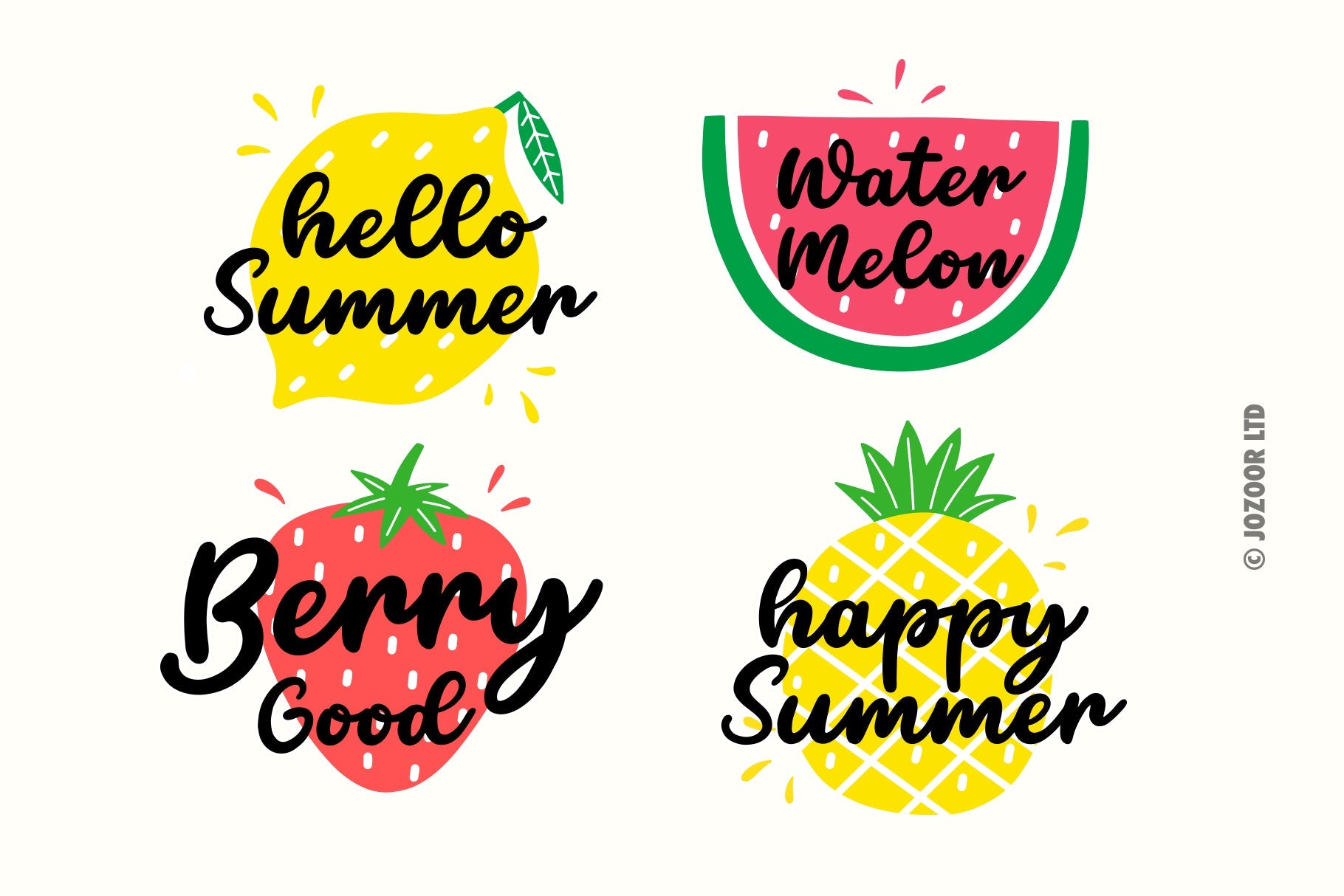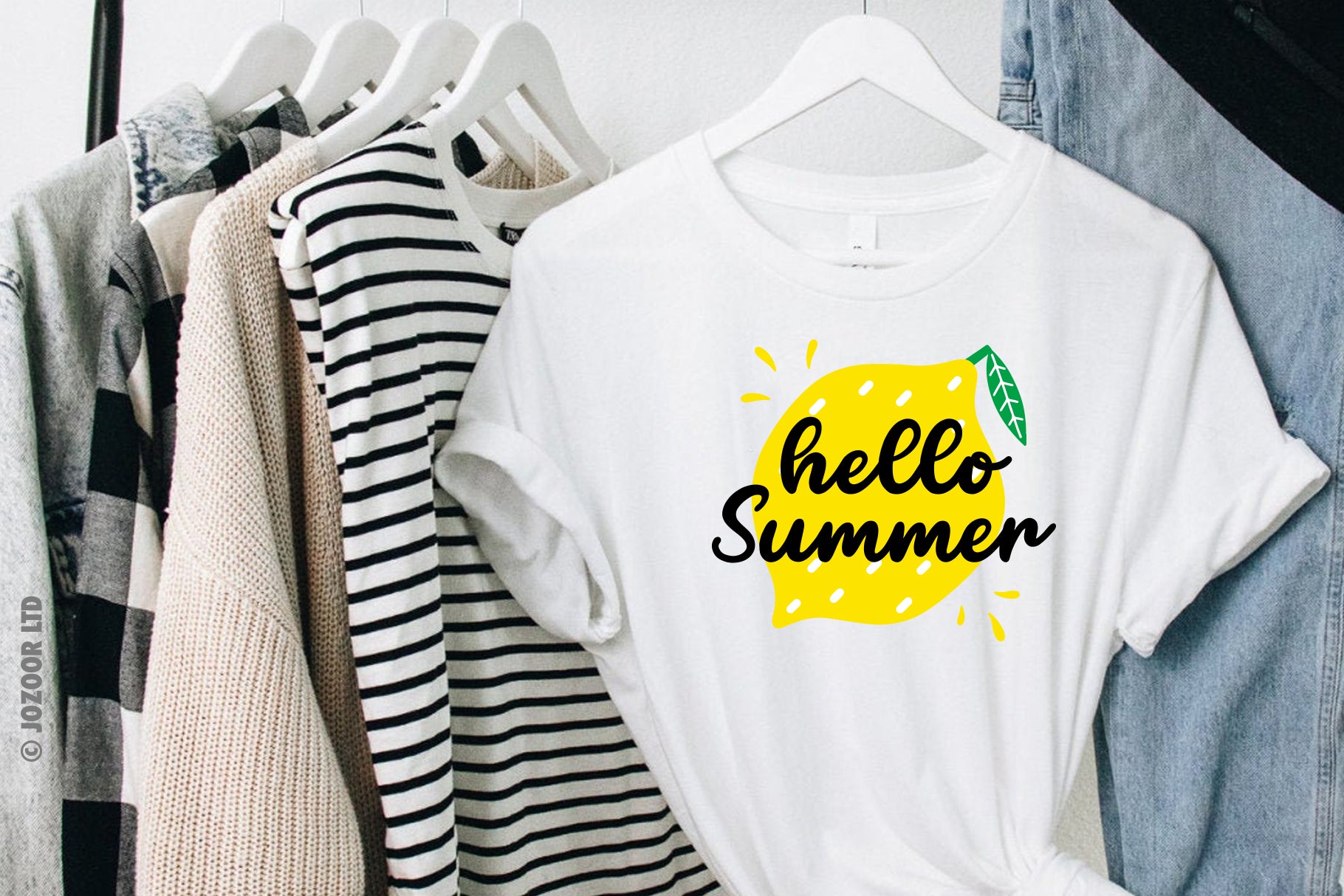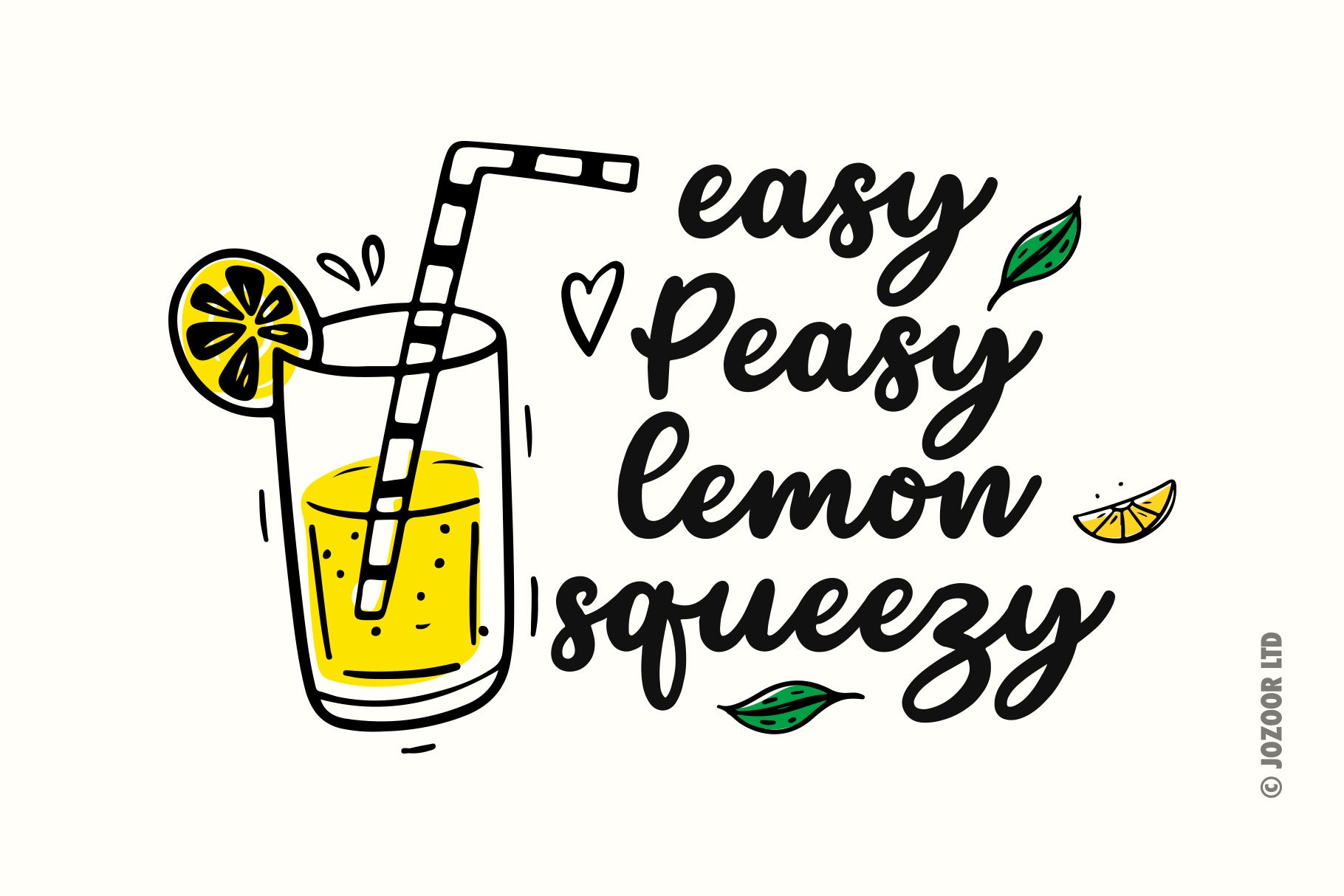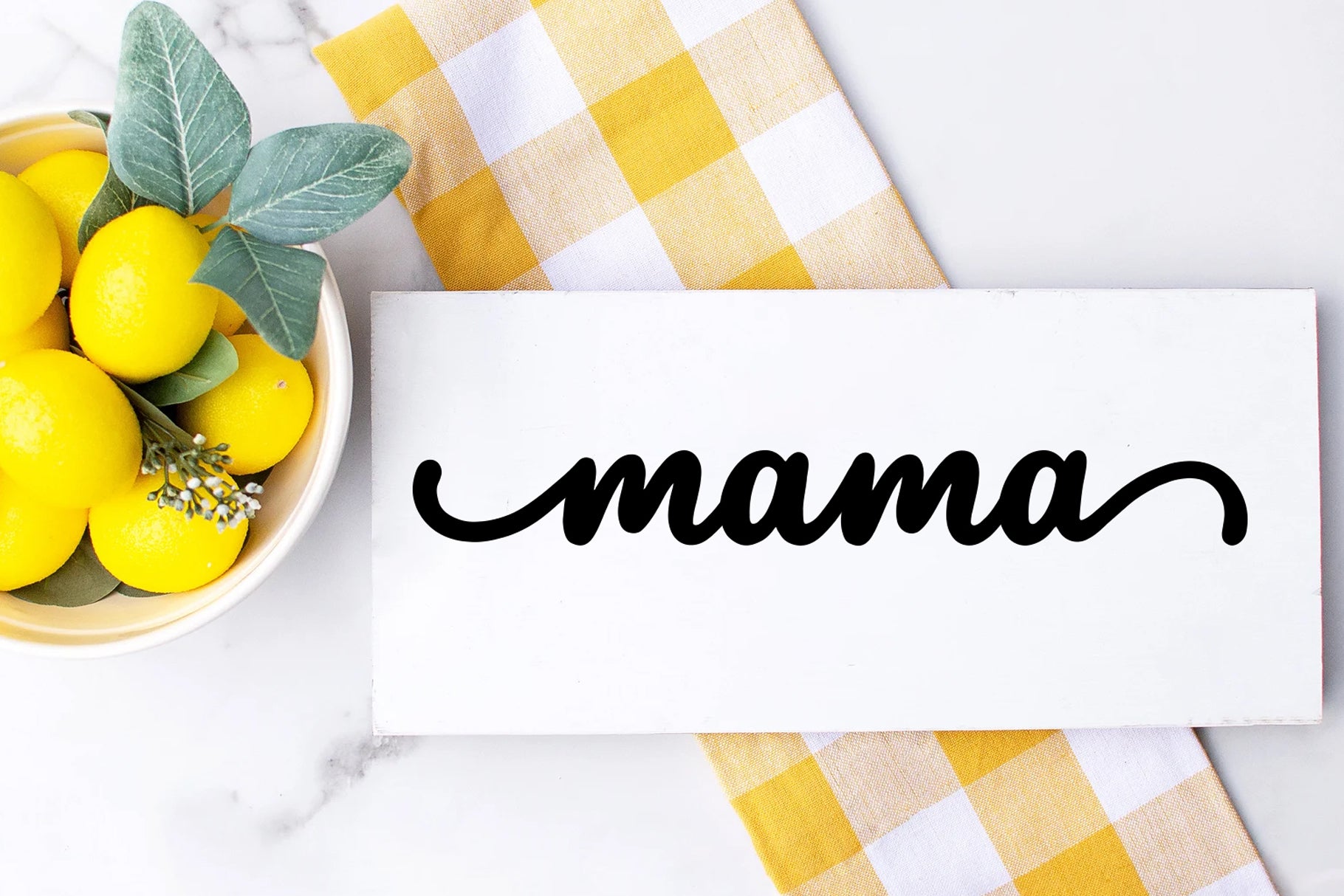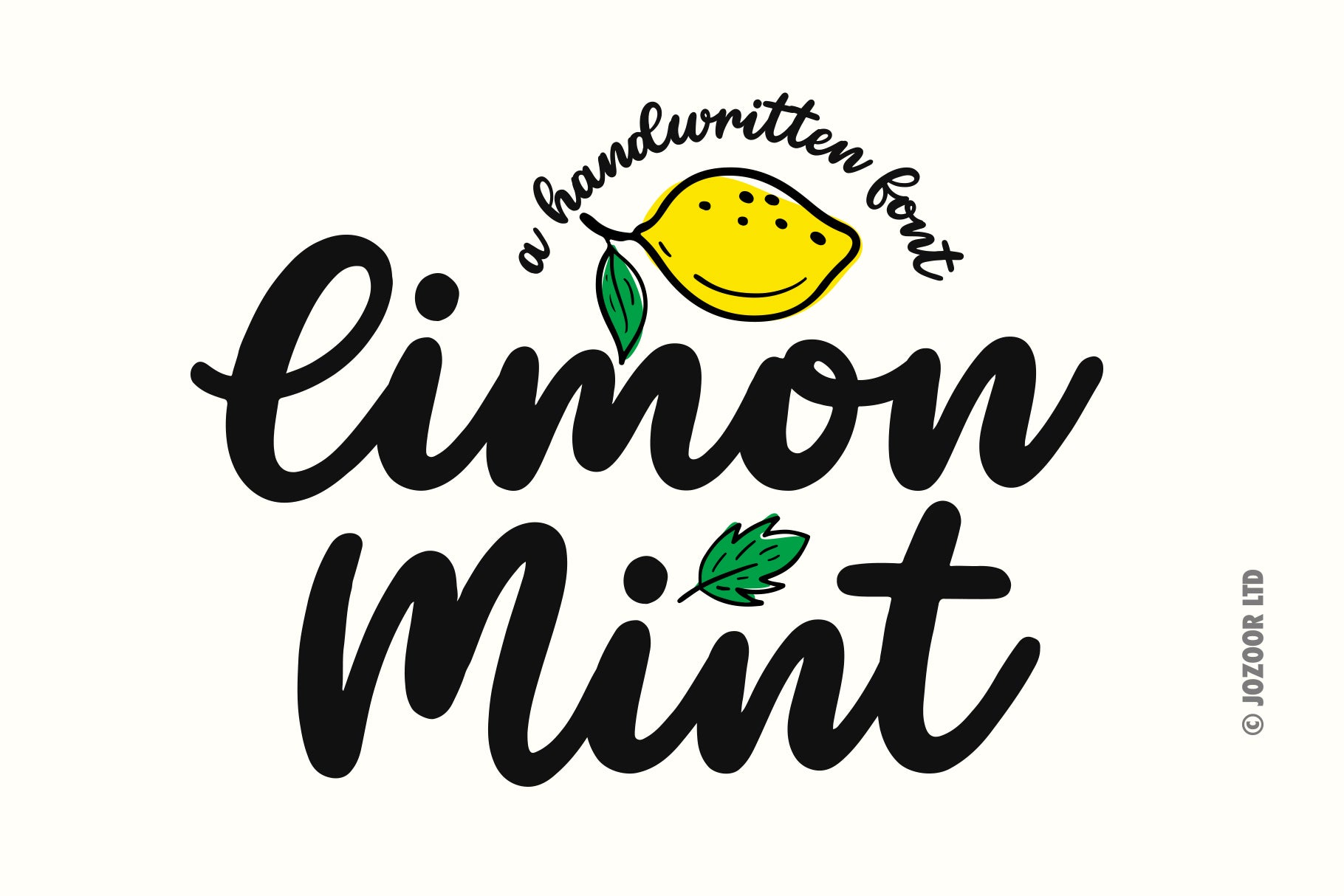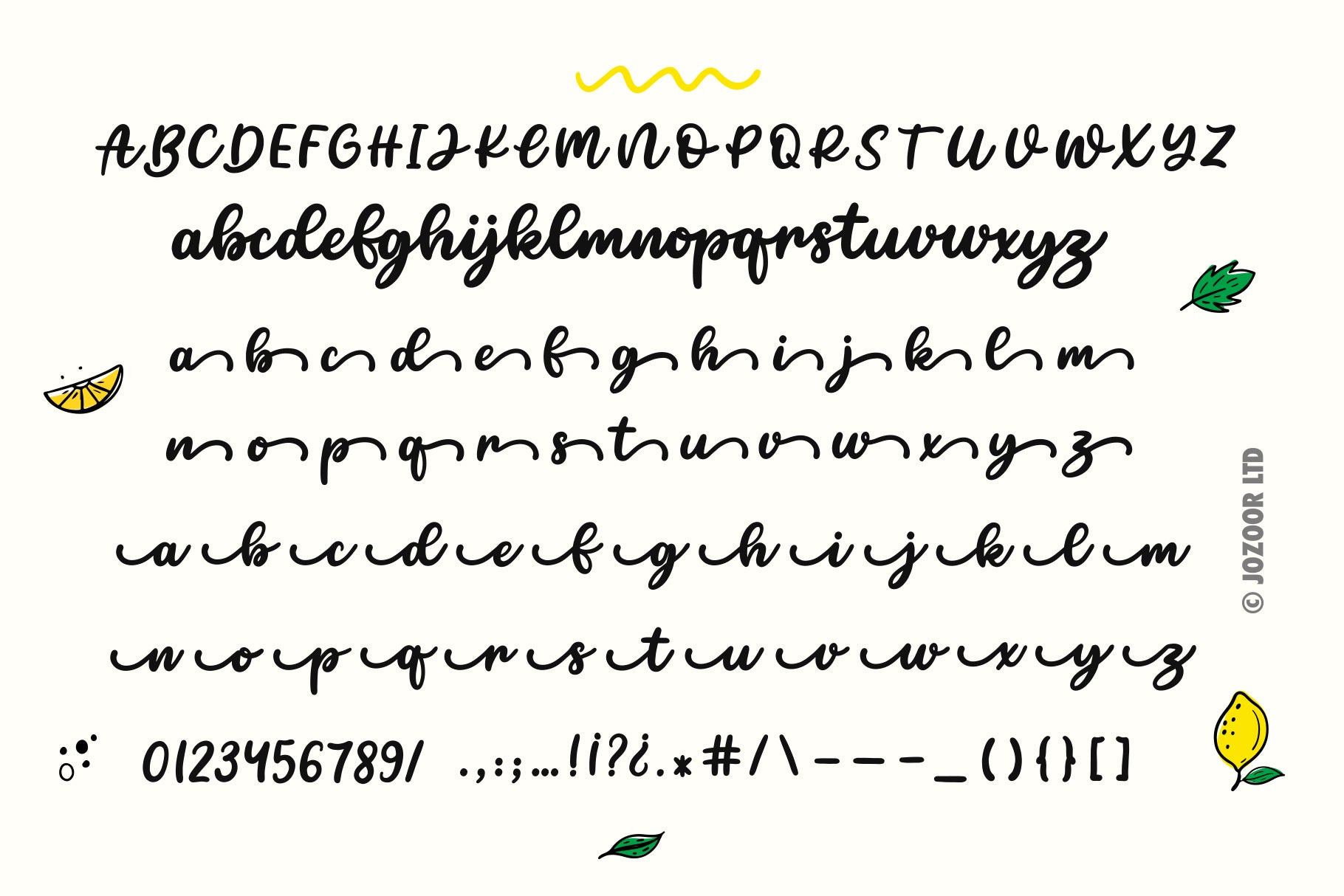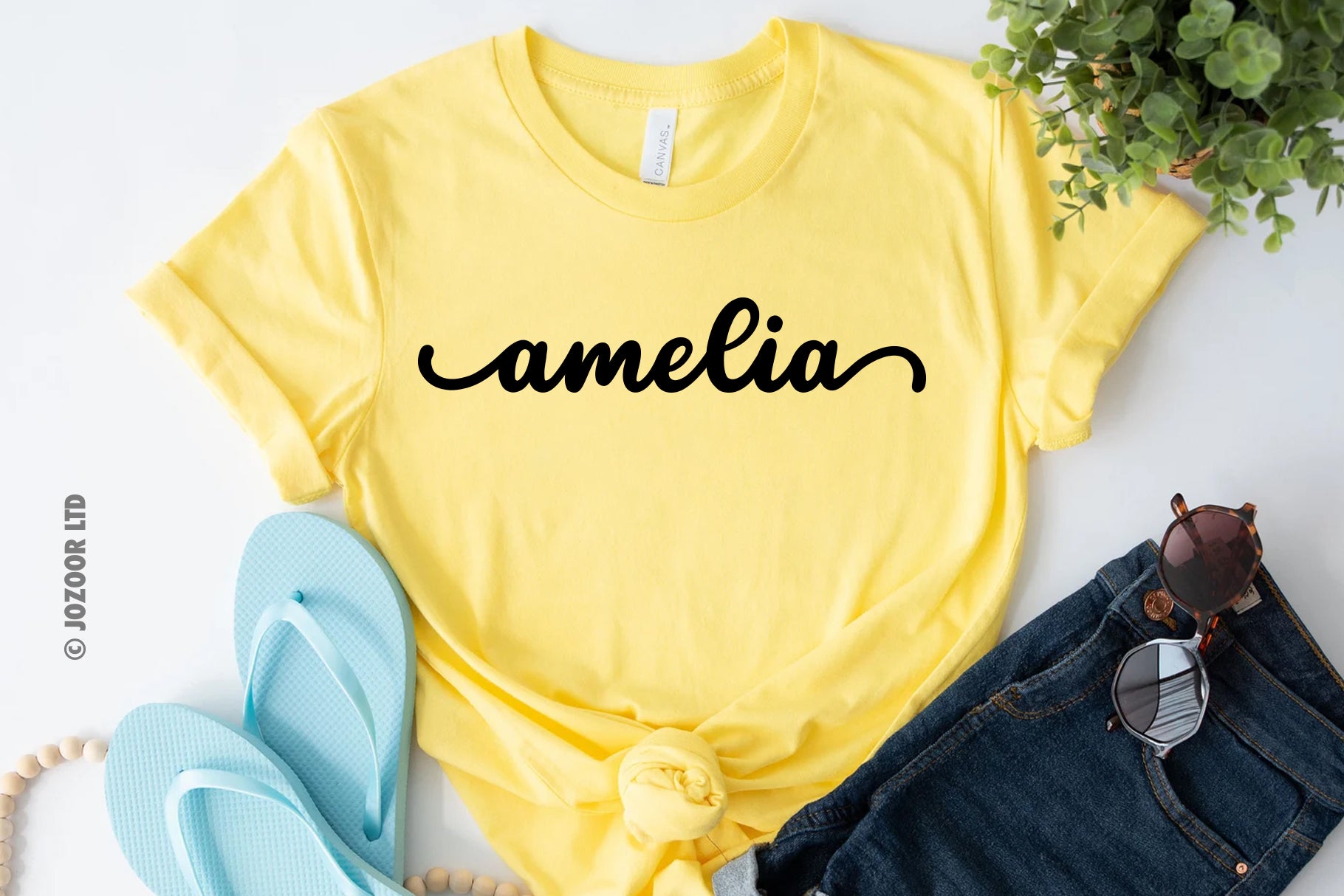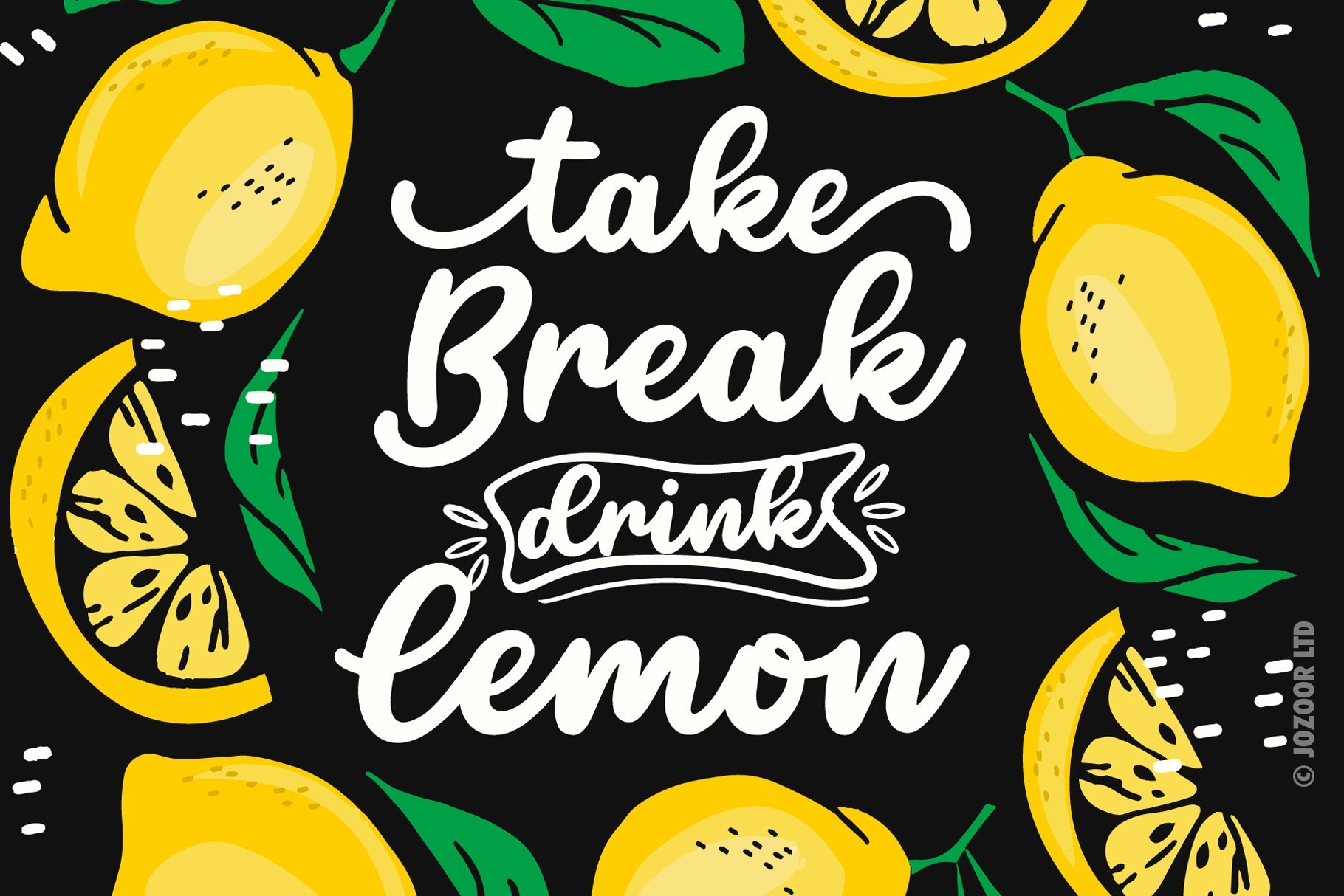
Limon Mint – Fresh Script Font
About Limon Mint – Fresh Script Font
Limon Mint is a fresh, stylish, modern, and flowing handwritten script font. It has beautiful and well-balanced characters and as a result, it matches a wide pool of designs. Add it to your most creative ideas and notice how it makes them come alive! Comes with free doodles clipart for use with any design. You will get: OTF Font File. TTF Font File. SVG Font File. Doodles Clipart in ( SVG & EPS ) format. User’s Guide PDF file. Hope you enjoy, and happy designing 🙂 ♥ JOZOOR